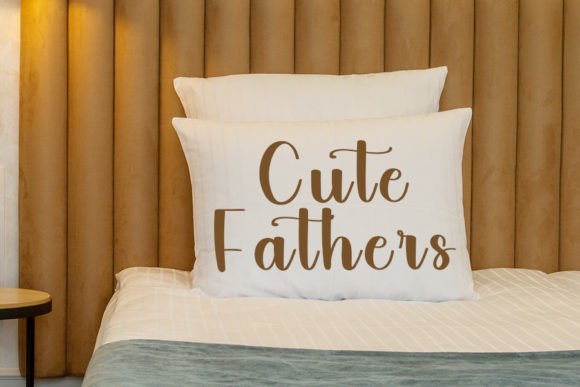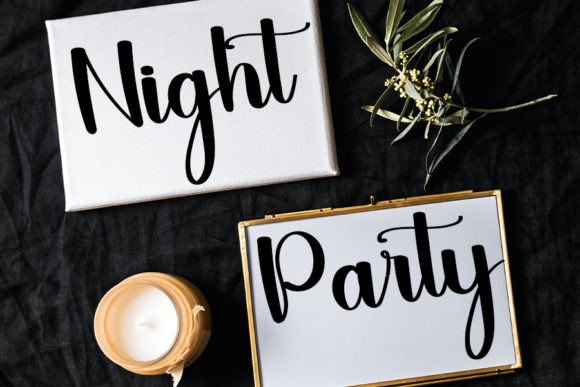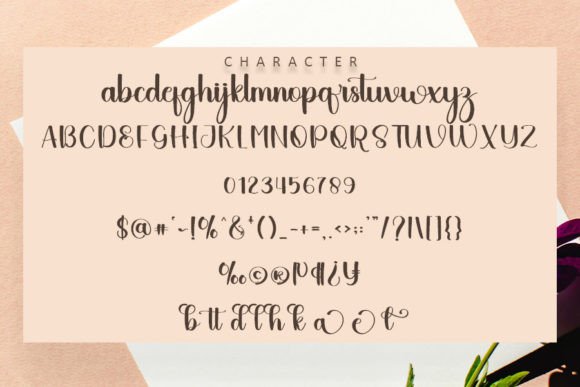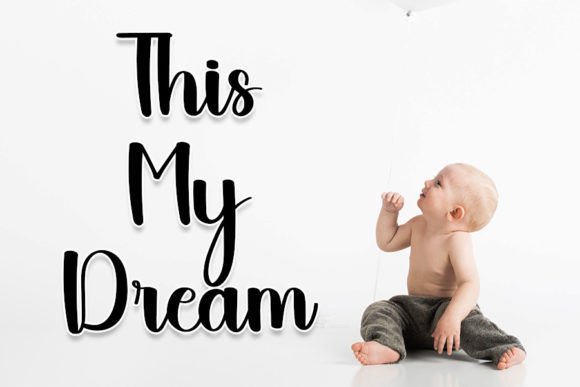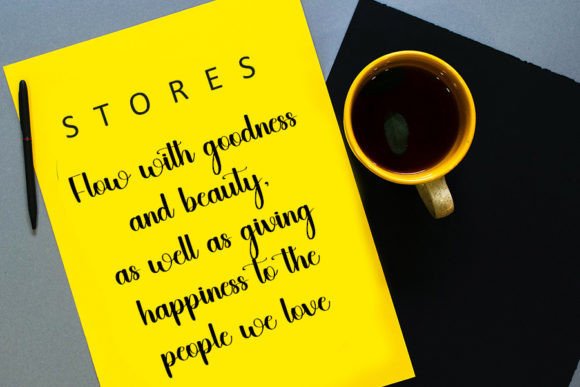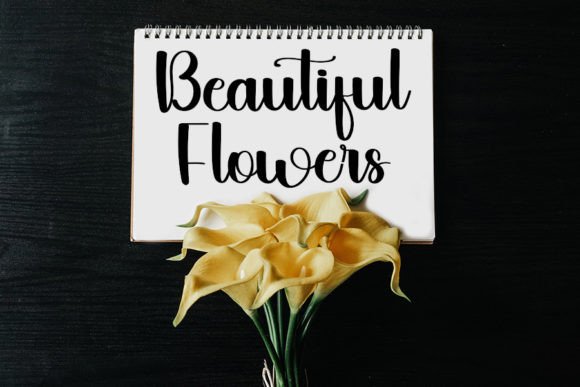
Unleashing the Beauty of Handwritten Design
As a designer, there’s no better feeling than seeing your creative vision come to life. Whether it’s a custom logo, a wedding invitation, or a social media post, the perfect font can make all the difference. I still remember the excitement of discovering the perfect font for my own branding project – the moment when everything fell into place and my design truly shone.
That’s where the Babylone Font comes in – a beautiful and refined handwritten font that exudes elegance and sophistication. With its modern touch, Babylone Font is the perfect choice for a wide range of design projects, from logos and branding to invitations and social media posts. As a designer, you’ll appreciate the value of this font’s PUA encoding, which makes it easy to access all of its amazing glyphs and ligatures.
Babylone Font Key Features
- Font Family: Babylone
- Font Styles: Regular, Italic, Bold, Bold Italic
- Size: The font contains 256 glyphs
- Resolution: Optimized for screen use at 72 dpi and 144 dpi for print
- Unique Characteristics: Unique, cursive script font with a touch of elegance and sophistication, ideal for titles, headings, and decorative text
Babylone Font Review
When I first laid eyes on the Babylone font, I was immediately drawn to its unique aesthetic. ✨ The combination of curved and angular lines creates a visually interesting and dynamic feel that can add a touch of sophistication to any design project.
- Works well in bold weights: The bold versions of the font are particularly effective, and can add a sense of drama and emphasis to text.
- Great for headlines: The font’s bold, attention-grabbing qualities make it well-suited for headlines and titles.
- Supports a range of languages: The Babylone font supports a wide range of languages, making it a great choice for international designs.
However, there are a few limitations to consider. ⚠️ The font may be difficult to read at smaller sizes, and the irregularities in the letterforms can make it tricky to pair with other fonts.
Overall, I think the Babylone font is a great choice for designers looking to add a unique touch to their projects. While it may not be suitable for every project, it’s definitely worth considering for headlines, titles, and other design elements where a bold, attention-grabbing font is needed.
For a more polished look, use the font in conjunction with other ornate or cursive fonts.
Use the font to create elegant titles or headings for your designs.
Use the font to add a touch of elegance to your presentations or documents.
Tips for Getting the Most Out of the Babylone Font
Use the font in combination with other decorative fonts for a unique look.
Use the font to create titles, headings, or other emphasis text.
Alternatives to Babylone Font
Playfair Display is a luxurious, elegant serif font that is ideal for use in high-end branding, luxury packaging, and advertising campaigns. It features intricate flourishes and ornaments, making it perfect for creating a sense of sophistication and refinement.
Compared to Babylone Font, Playfair Display is more ornate and luxurious, making it suitable for high-end applications. While Babylone Font has a more vintage feel, Playfair Display has a more modern and elegant look.
Carolyna Pro is a modern, elegant serif font that is perfect for use in branding, advertising, and editorial design. It features a clean and sophisticated design, making it ideal for creating a sense of refinement and luxury.
Compared to Babylone Font, Carolyna Pro is more modern and clean, making it suitable for a wider range of applications. While Babylone Font has a more vintage feel, Carolyna Pro has a more contemporary look.
Great Vibes is a modern, elegant script font that is perfect for use in branding, advertising, and editorial design. It features a flowing and connected design, making it ideal for creating a sense of sophistication and refinement.
Compared to Babylone Font, Great Vibes is more modern and flowing, making it suitable for applications where a sense of movement and energy is desired. While Babylone Font has a more vintage feel, Great Vibes has a more contemporary look.